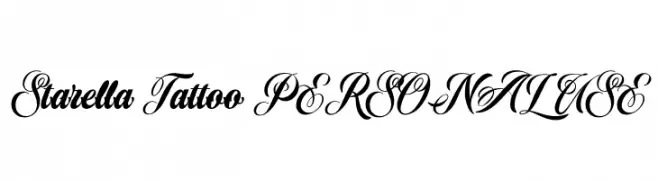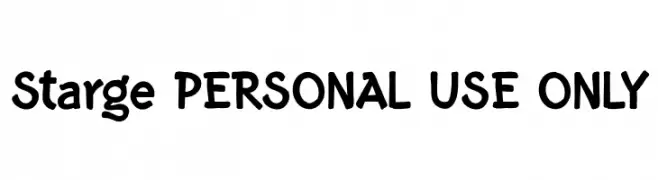
An elegant and decorative script font with flowing, interconnected letterforms.
An elegant and ornate script font with flowing, decorative letterforms.
A playful, bold, hand-drawn font with a whimsical and informal style.
A bold, cursive font with interconnected characters and a dynamic flow.
A bold, expressive handwritten font with fluid, interconnected strokes.
A fluid, cursive font with a casual, elegant style.
A playful, bold font with rounded, thick strokes and a hand-drawn feel.
A playful, bold font with rounded, thick strokes and a whimsical, casual vibe.
An elegant script font with intricate swashes and decorative flourishes.
A romantic script font with heart motifs and bold, flowing letterforms.